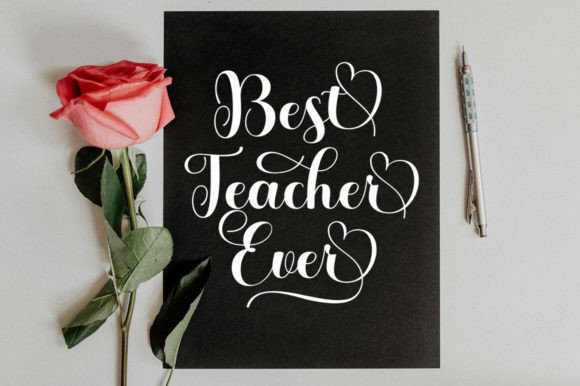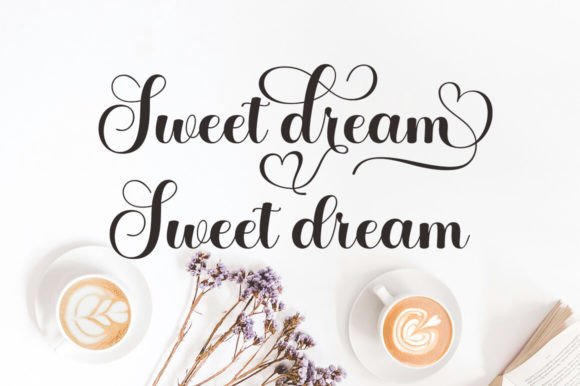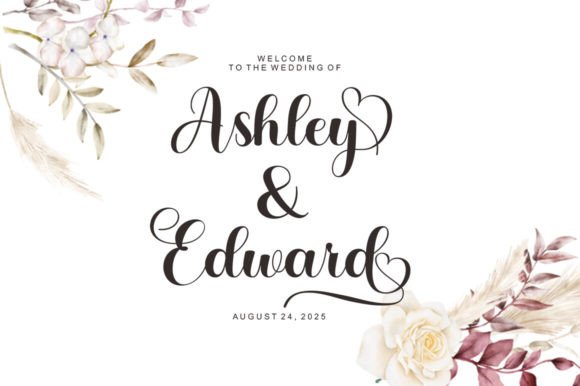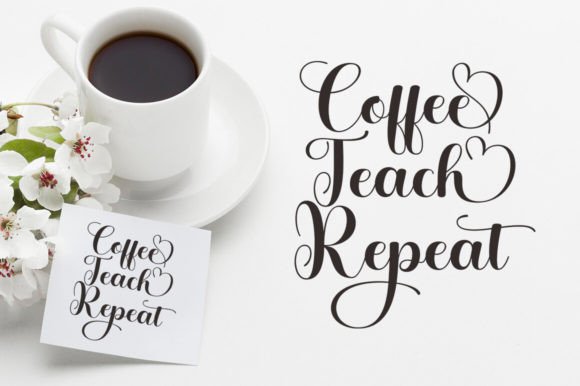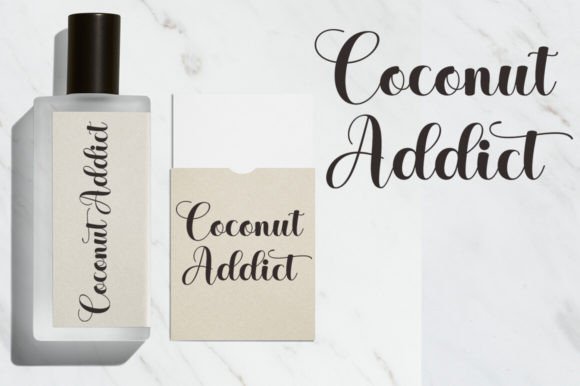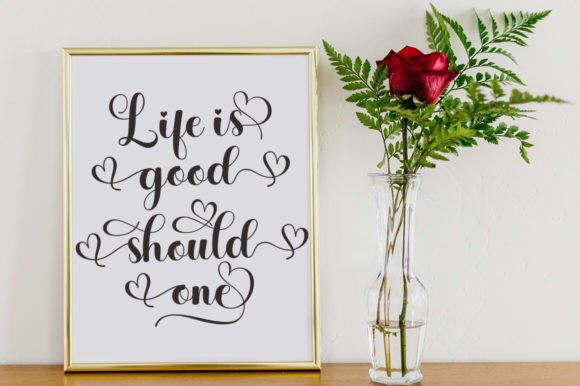
Have you ever sat down at your desk, surrounded by scraps of paper, paint, and glue, and felt the urge to create something beautiful and unique? For many of us, the spark of creativity can strike at any moment, and when it does, we want to capture it in the best possible way. That’s where the Bestie Script Font comes in – a modern script font that’s perfect for adding a touch of elegance and whimsy to your next project.
Whether you’re designing a wedding invitation, a thank you card, or a logo, the Bestie Script Font is a valuable addition to any designer’s toolkit. Its trendy and feminine style makes it perfect for a wide range of applications, from greeting cards to business cards, and its irregular baseline adds a touch of personality to any design. With initial and terminal letters, alternates, and multiple language support, this font is a must-have for anyone looking to take their designs to the next level.
Bestie Script Font Key Features
- Font Type: Script font, perfect for creating a friendly and approachable feel in designs and typography.
- Unique Characteristics: Features a unique, handwritten style with subtle imperfections, giving it a personal and authentic feel.
- Language Support: Supports a wide range of languages, including Latin, Cyrillic, and Greek alphabets, making it suitable for global designs and communications.
Bestie Script Font Review
As a designer, I was excited to dive into the Bestie Script Font and see what it has to offer. On the positive side, I was impressed by its ✨ elegant and cursive feel, perfect for adding a touch of sophistication to your designs. The font is highly customizable, allowing you to adjust the size, color, and spacing to fit your unique style. I also appreciated the wide range of language support, making it a great option for projects that require multilingual content.
However, I did encounter a few limitations ⚠️ that might be a concern for some designers. One issue is the lack of bold and italic styles, which can make it difficult to create emphasis or hierarchy in your designs. Additionally, the font can be quite decorative, which might not be suitable for projects that require a more minimalist or modern aesthetic. Finally, I noticed that the font can be a bit too ornate for smaller text sizes, which can make it difficult to read.
- ✨ Elegant and cursive feel
- Wide range of language support
- Lack of bold and italic styles
- Can be too ornate for smaller text sizes
Overall, I would say that the Bestie Script Font is a great option for designers who want to add a touch of elegance and sophistication to their projects. However, it may not be the best choice for projects that require a more modern or minimalist aesthetic. With a bit of customization and careful usage, this font can be a great addition to your design toolkit.
The Bestie Script font is ideal for:
- Birthday invitations and party decorations.
- Any design that requires a playful, handwritten touch.
Remember to use the Bestie Script font in moderation, as it can be quite ornate.
Q: What is the character set for the Bestie Script Font?
The Bestie Script Font includes a comprehensive character set, including uppercase and lowercase letters, numbers, punctuation marks, and special characters. The font also includes a range of ligatures and alternates to help designers achieve a more polished and professional look.